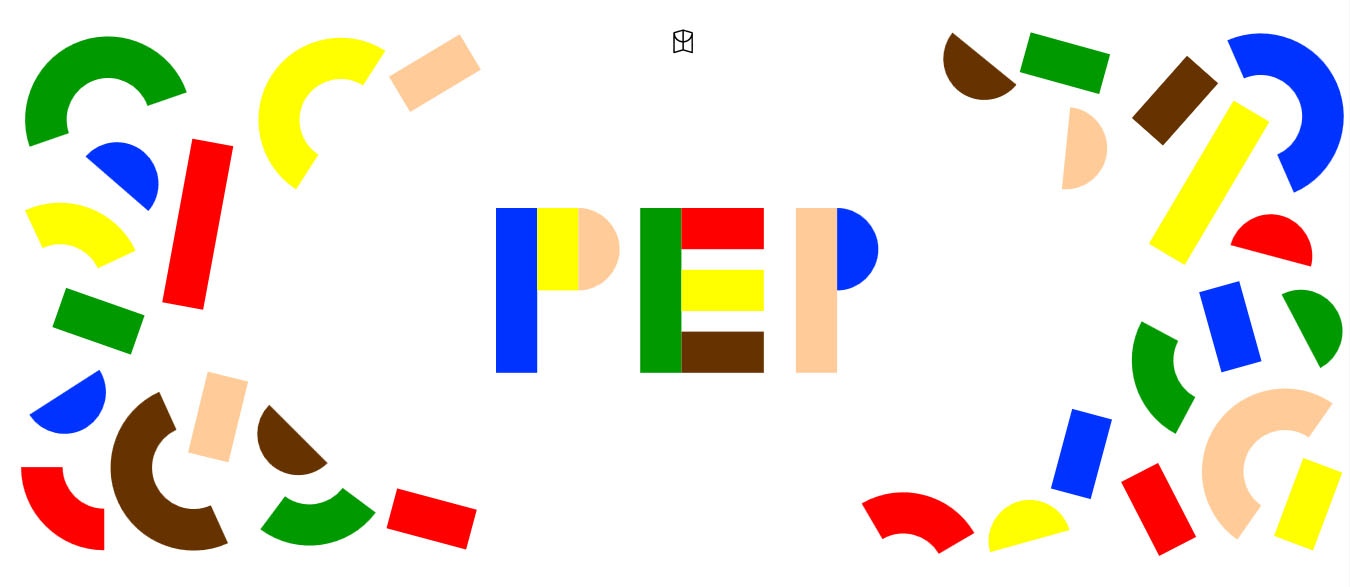
Pep Font
Pep Font is perfect for sports team branding, fitness center signage, energy drink packaging, motivational poster design, youth marketing campaigns, athletic apparel logos, cheerleading graphics, and dynamic social media content.
What makes Pep Font exciting is its infectious energy that radiates enthusiasm and positive motivation. The font features bouncy letterforms with dynamic curves and uplifting character variations that create an atmosphere of excitement and encouragement. Its spirited design and energetic flow communicate vitality, optimism, and team spirit, making every message feel like a rallying cry that inspires action and builds confidence in audiences seeking motivation and empowerment.
The Pep Font family includes regular weight with uppercase and lowercase letters, numerals, punctuation marks, and special characters. Some versions may feature energetic alternates and decorative elements that enhance the spirited, motivational aesthetic perfect for sports and fitness applications.
This vibrant display typeface brings instant enthusiasm and motivational power to any energizing project. Pep Font Free Download delivers exceptional results for brands and organizations in sports, fitness, and youth markets seeking to communicate energy, positivity, and team spirit to active audiences.
The motivational character of Pep Font makes it particularly effective for athletic programs, fitness brands, and youth-oriented campaigns. Its excellent visibility ensures coaching instructions and motivational messages capture attention while maintaining the distinctive energetic aesthetic that resonates with athletes and fitness enthusiasts.
Sports marketers and fitness professionals appreciate how Pep Font effortlessly conveys enthusiasm and team unity. The font's dynamic rhythm and uplifting variations create inspiring brand materials that establish connections with audiences seeking motivation, athletic achievement, and positive lifestyle changes.
The versatile energy of this typeface extends to children's programs, motivational speaking, and wellness coaching where positive reinforcement enhances program effectiveness. Pep Font Free Download provides creative professionals with a valuable tool for developing memorable, spirit-lifting designs that resonate with audiences who embrace activity, teamwork, and the energizing power of positive motivation in their fitness and lifestyle goals.